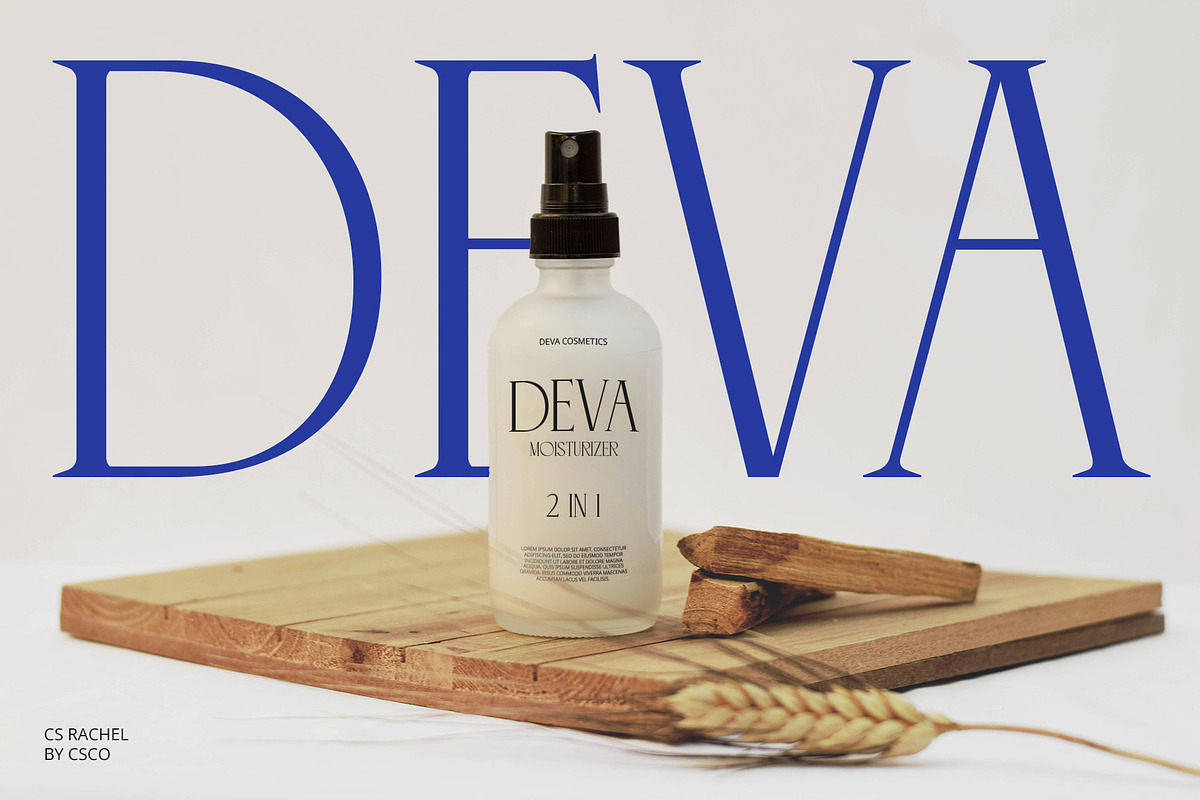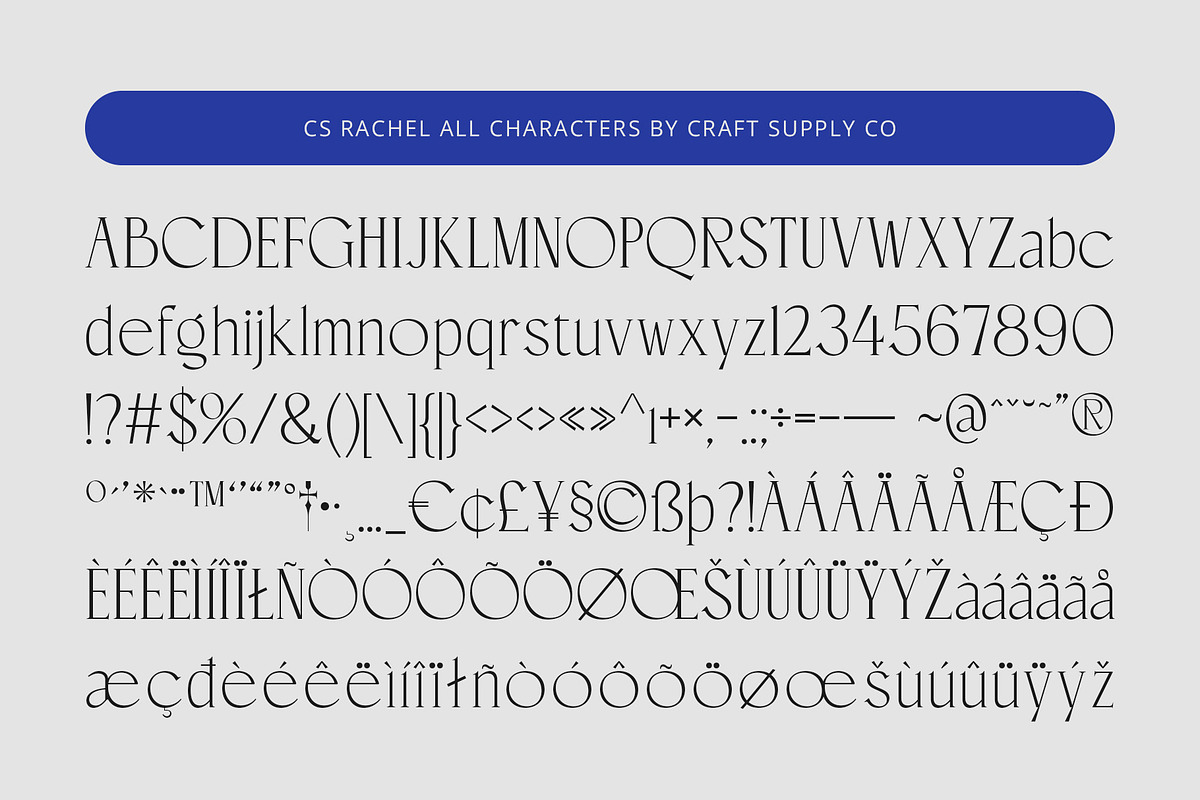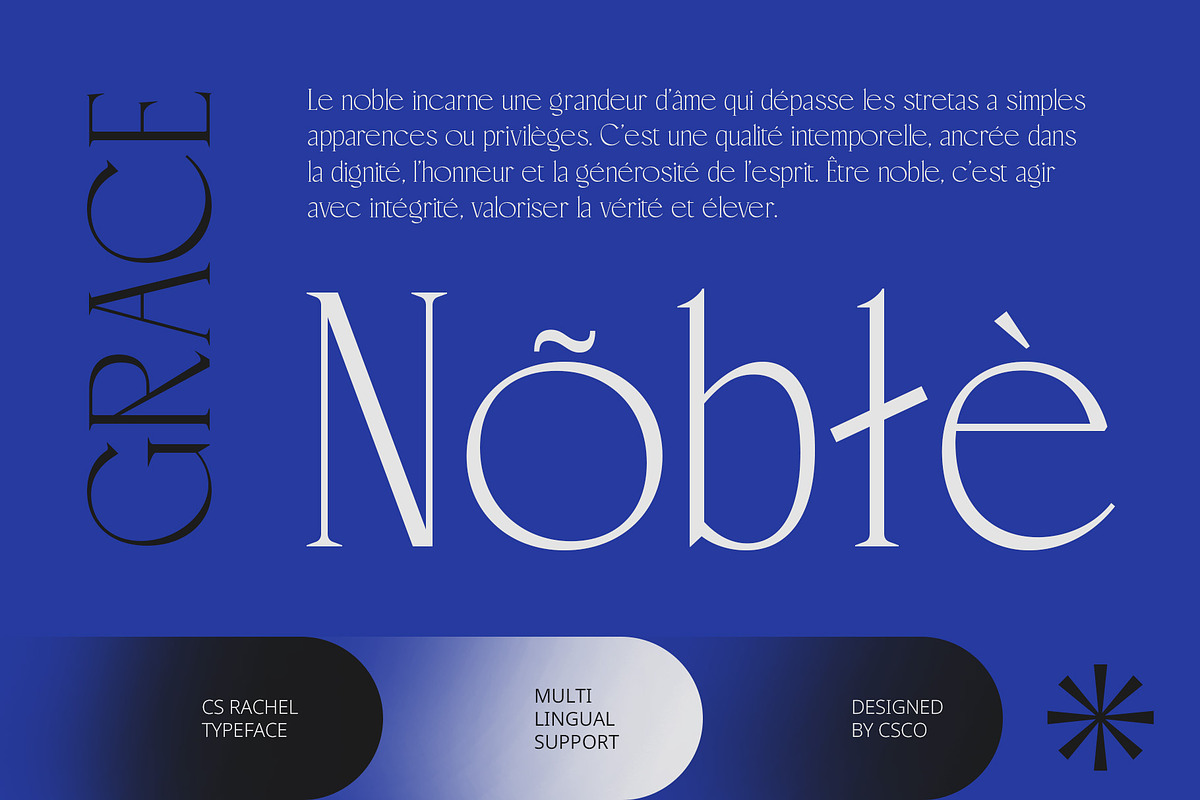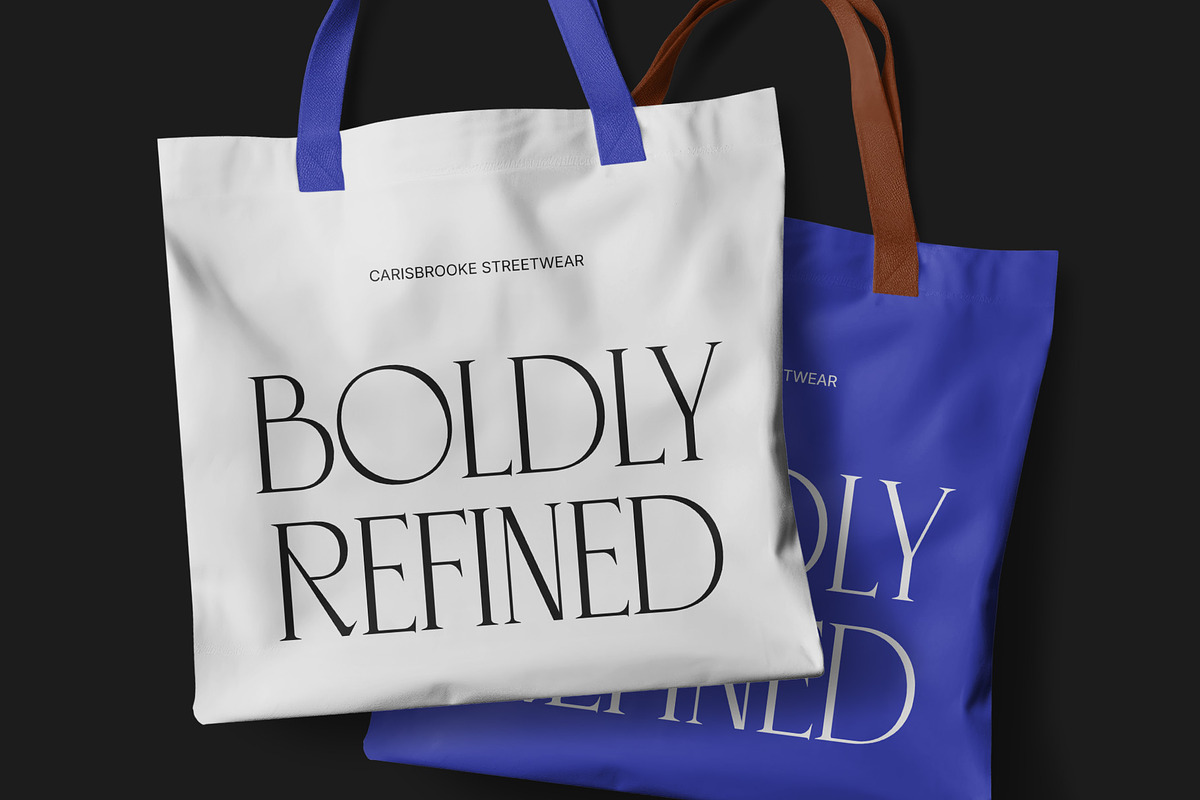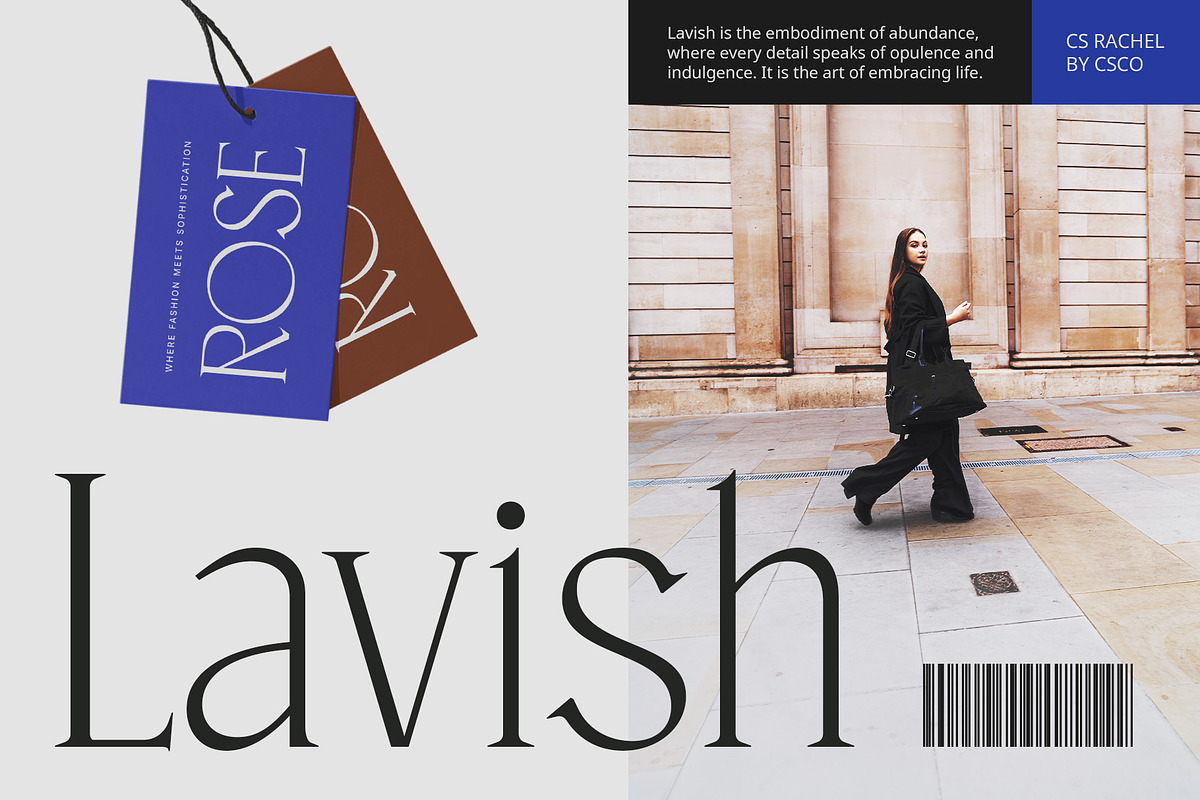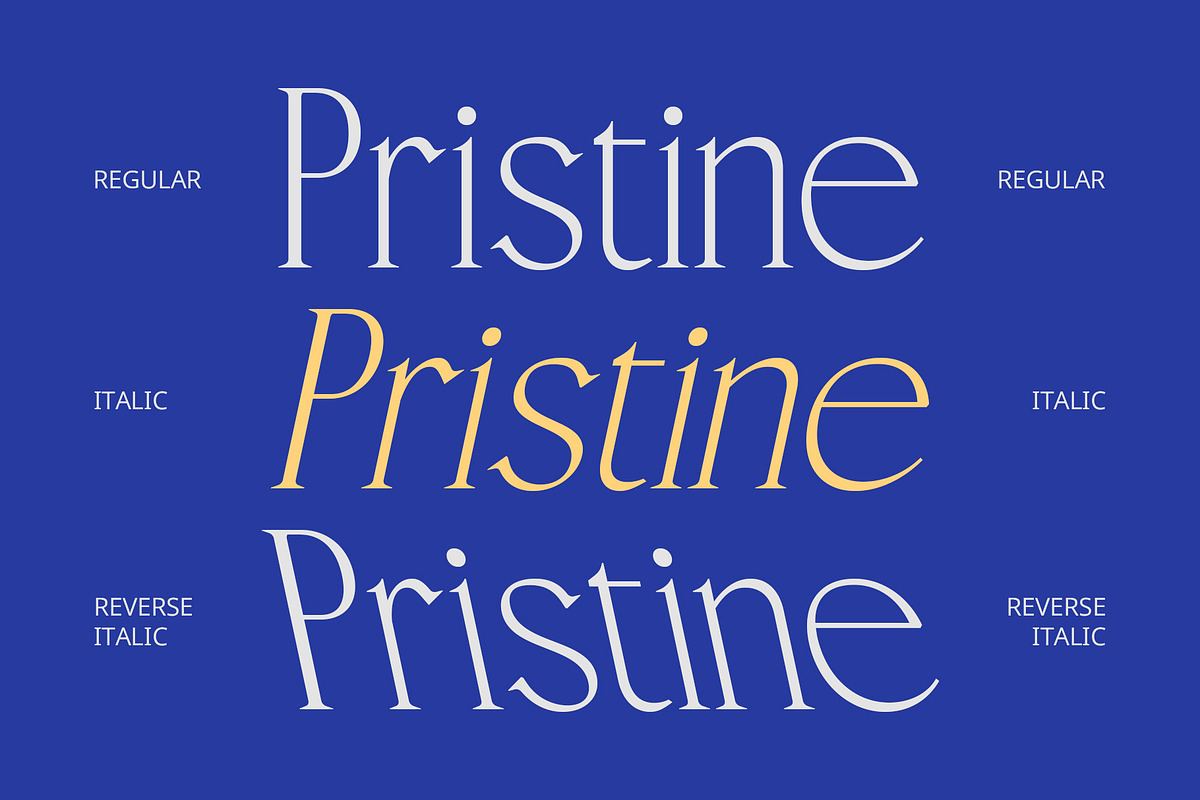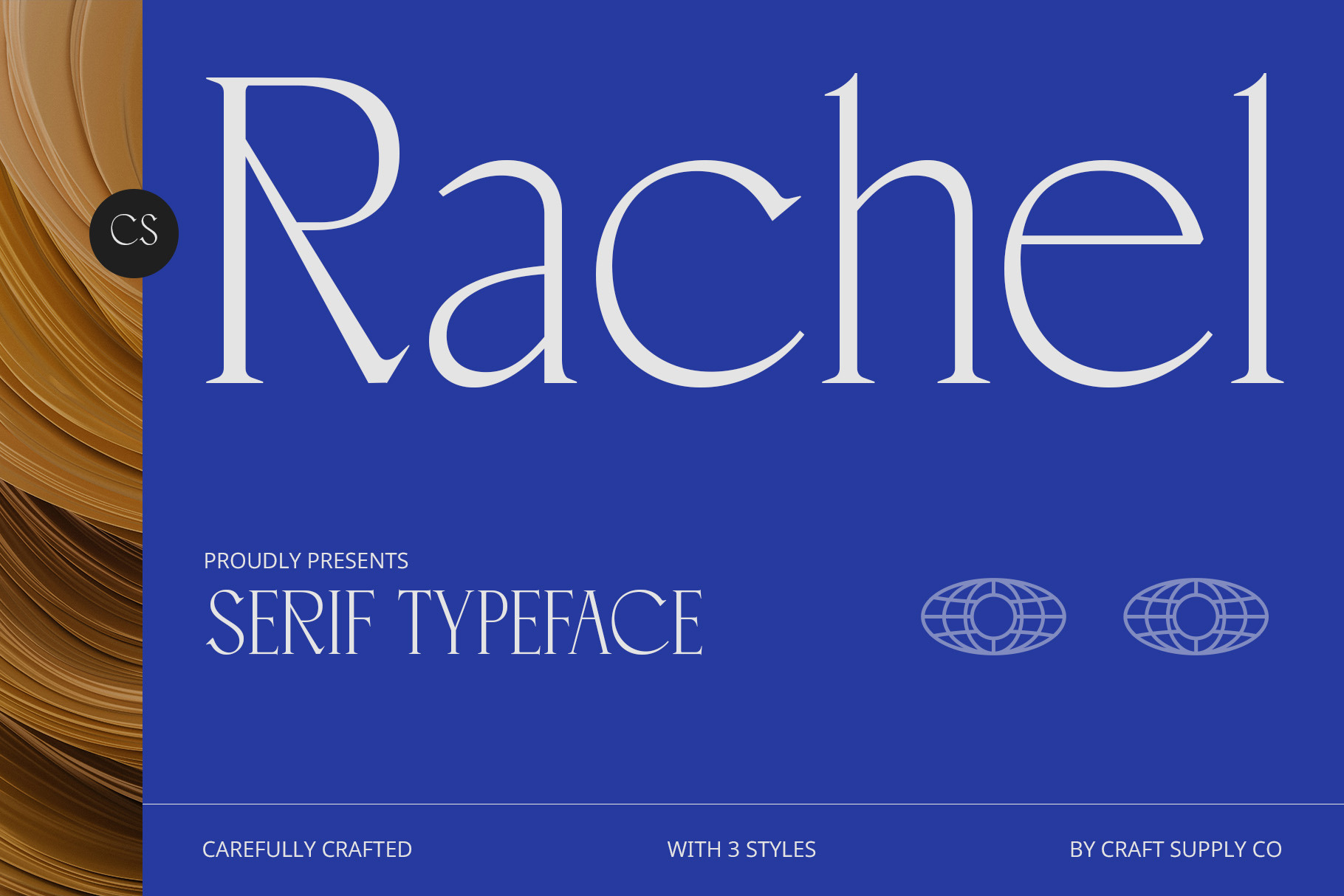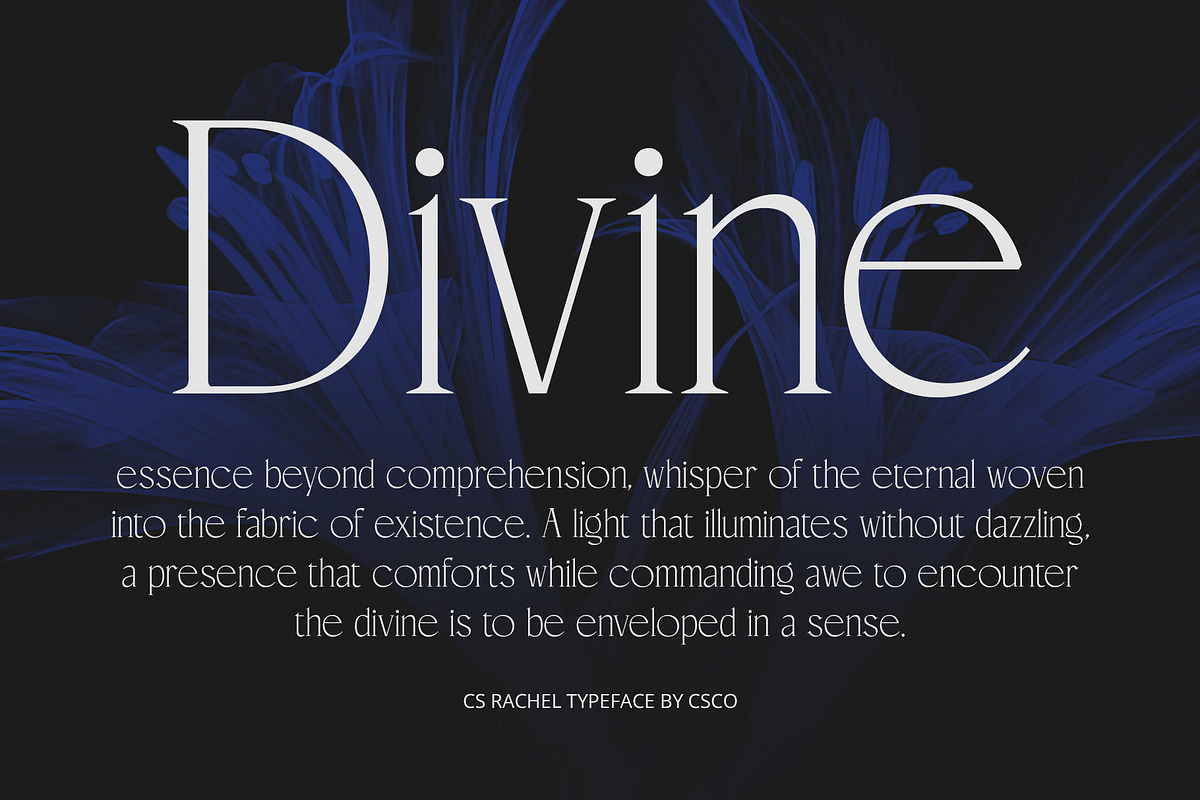
CS Rachel – Elegant Font
CS Rachel – Elegant Serif Font
Sophisticated Design with Refined Elegance CS Rachel is a modern serif font that effortlessly combines sleek, clean lines with subtle curves, creating an air of sophistication and refinement. Its elegant design captures timeless beauty, making it the perfect choice for high-end branding, luxury editorial projects, and upscale design endeavors.
Timeless Sophistication for Luxury Branding With its refined letterforms and balanced proportions, CS Rachel offers a polished and professional aesthetic ideal for premium branding. Whether used for luxury logos, high-fashion advertisements, or exclusive promotional materials, this font conveys a sense of luxury and grace, perfect for brands that demand attention and sophistication.
Versatile for High-End Editorial Projects Designed for projects that require a polished and timeless appearance, CS Rachel excels in editorial design, where its elegant curves and crisp lines create a harmonious balance of classic and contemporary elements. It’s perfect for fashion magazines, high-end brochures, and exclusive invitations, adding a touch of refinement to any publication.
Ideal for a Luxurious, Timeless Look CS Rachel provides an exquisite balance between modernity and tradition, offering versatility for a wide range of luxury design projects. Whether you’re working on corporate branding, high-end packaging, or bespoke event materials, CS Rachel ensures your designs exude an air of elegance and sophistication, perfect for clients seeking a refined and polished visual identity.
- CS Rachel Regular
- CS Rachel Italic
- CS Rachel Reverse Italic